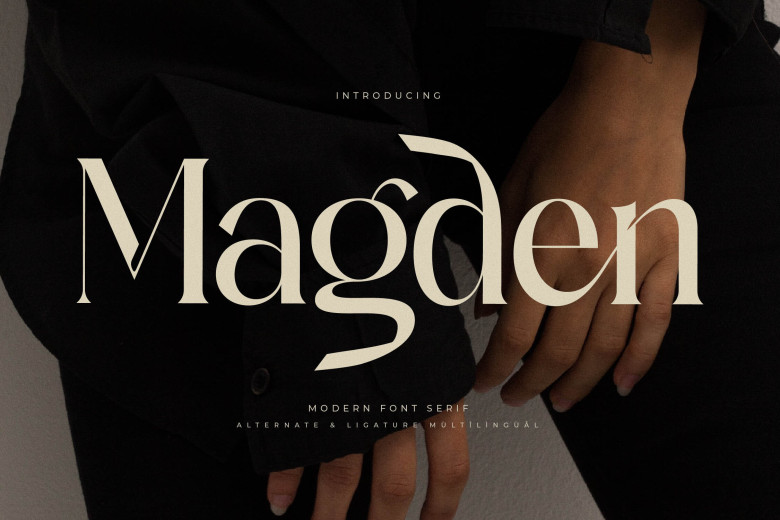
Magden Font
Magden Font, designed by Storytype, is an elegant yet timeless serif typeface with its own distinct style and contemporary appeal. Perfect for logos, movie or book titles, fashion, label, clothing lines, magazines and lettering as well as quote text etc, Magden font is ideal for sophisticated yet luxurious applications like logo design.
Magden Serif Font